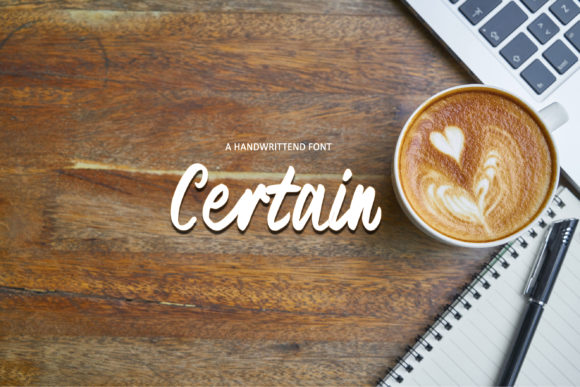
Certain Font
Step into a world of refined elegance and sophisticated charm with Certain Font, a captivating script font family that will ignite your creativity. Its bold and italic strokes dance across the page, leaving a trail of timeless beauty and visual intrigue. Created by the talented W INTEREST, this font exudes a fresh and modern vibe, making it the perfect choice for a wide range of design projects.
With Certain Font at your fingertips, you can craft logos that command attention, branding that exudes professionalism, and greeting cards that convey heartfelt emotions. Its versatility knows no bounds, extending to posters, invitations, and any other creative endeavor you can imagine.
Embrace the allure of Certain Font and watch your designs come to life with a touch of grace and sophistication. Its elegant curves and sweeping lines add a dash of visual interest that will captivate your audience, leaving them spellbound by the beauty of your creations.
Unleash the power of Certain Font and elevate your design projects to new heights. Its timeless appeal ensures that your designs will endure the test of time, captivating hearts and minds for generations to come.
Immerse yourself in the world of Certain Font and let your imagination soar. With its bold and italic strokes, fresh and modern style, you'll have the tools you need to create designs that leave an unforgettable impression.